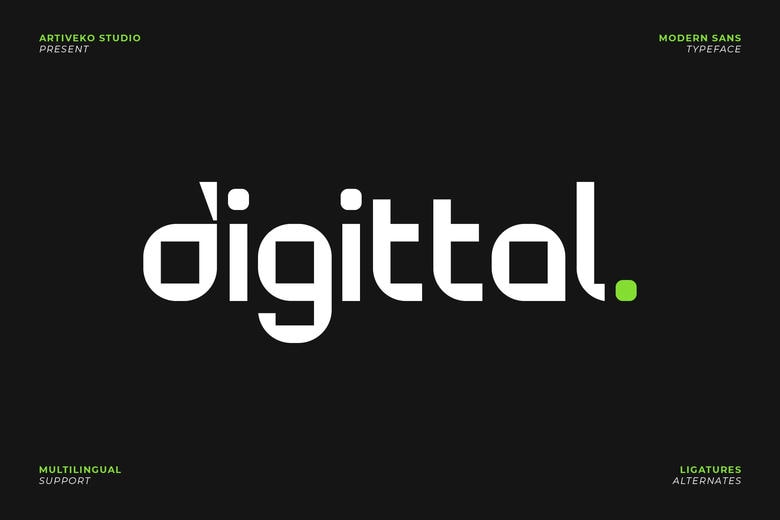
Digittal Font
Digittal is a sleek and innovative logo font designed to capture the essence of technology and digital advancement. Featuring geometric precision, sharp angles, and a futuristic vibe, Digittal is perfect for tech startups, app logos, gaming titles, digital products, UI/UX design, and modern branding projects that need a cutting-edge look.
Digittal Logo Font